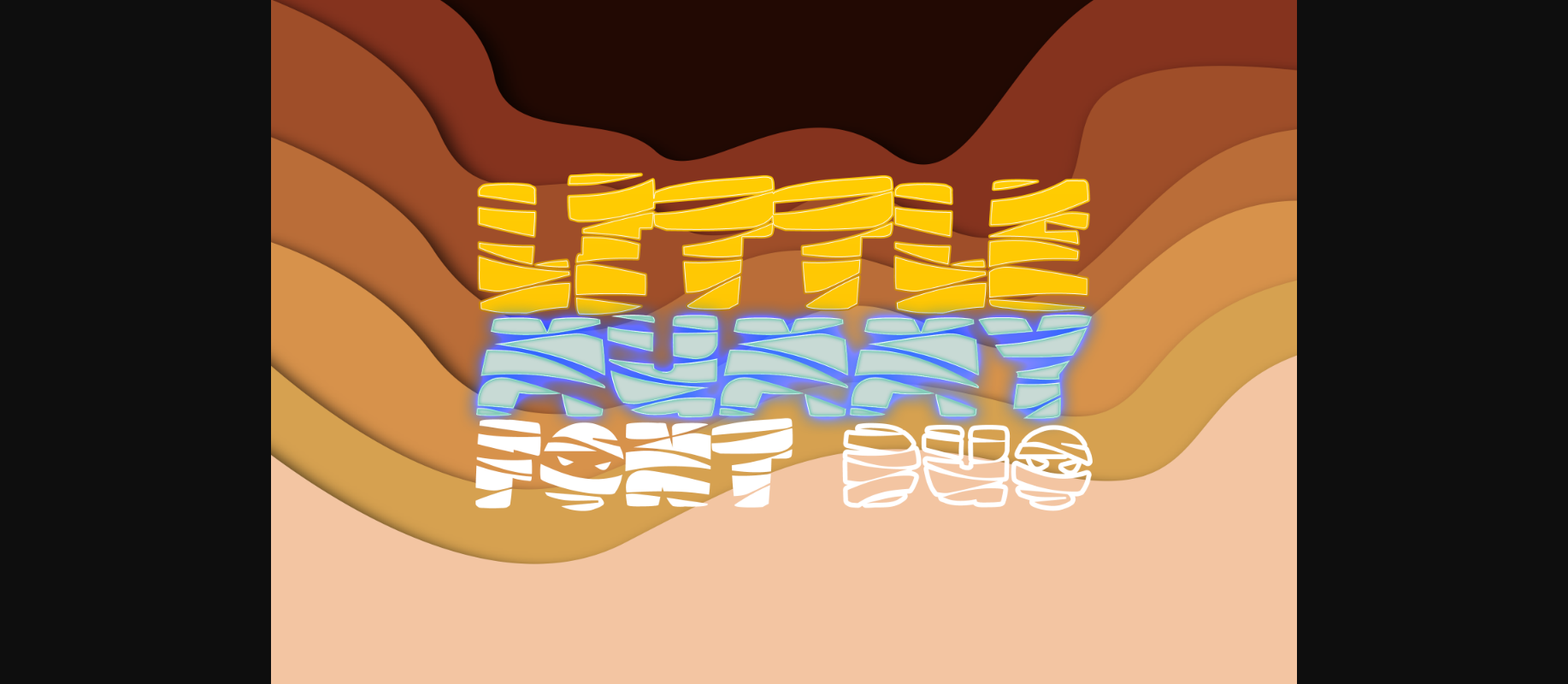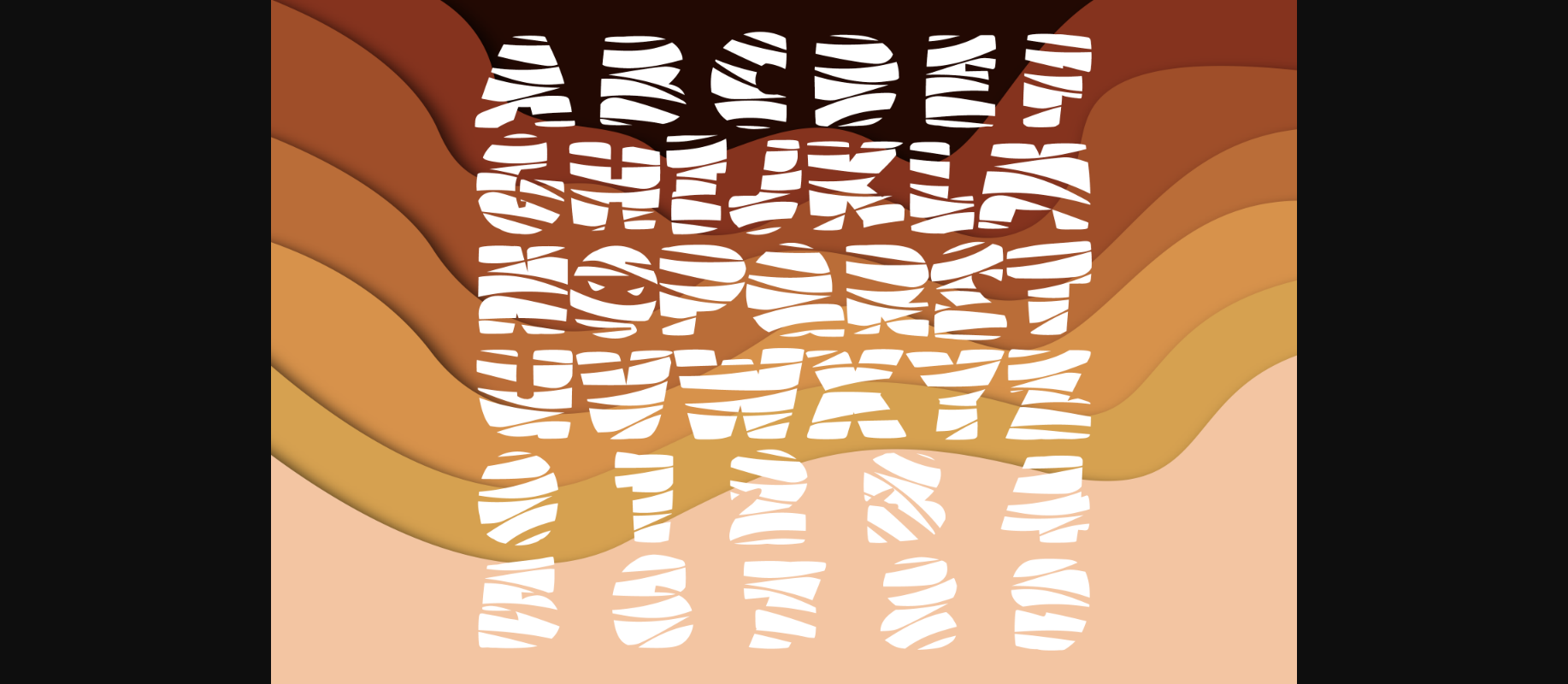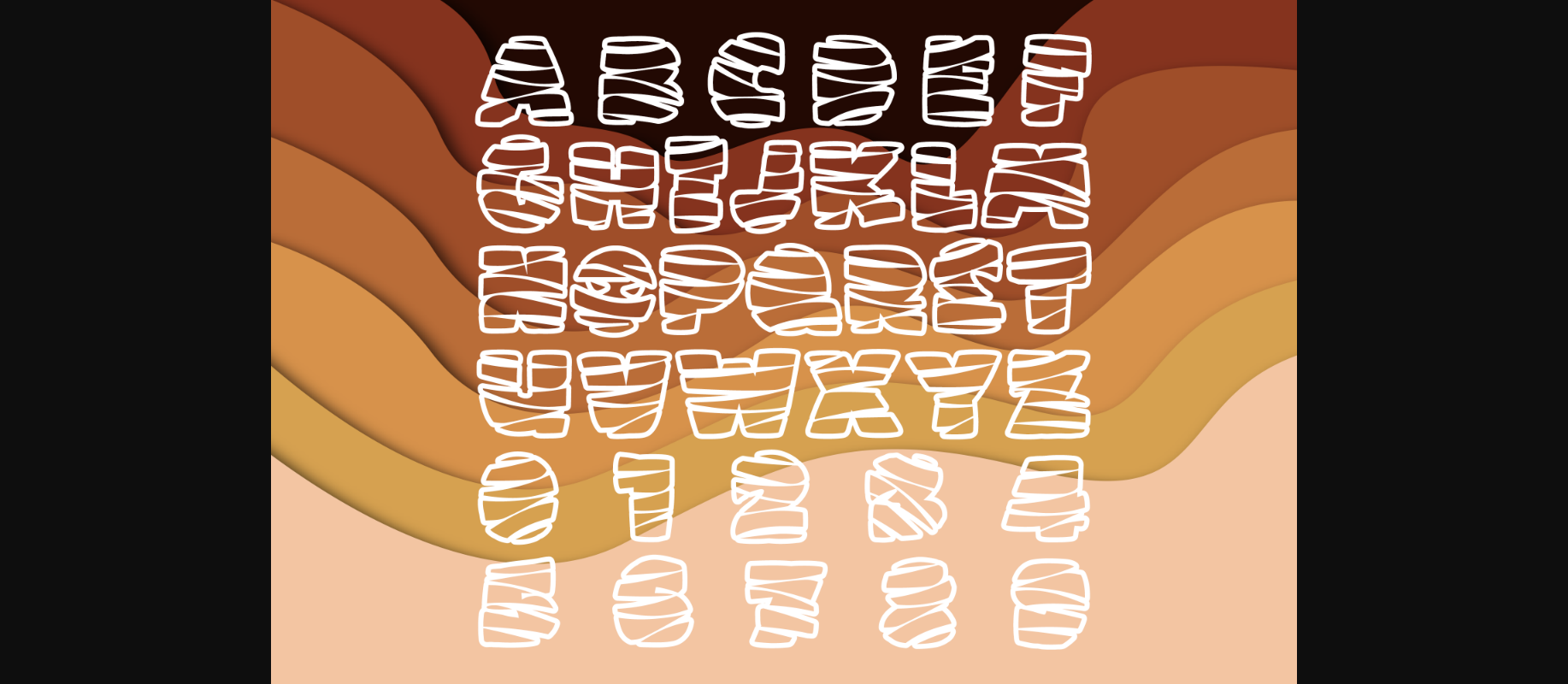
Little Mummy Duo Font
About Little Mummy Duo Font
Little Mummy Duo is a cool and thick lettered decorative font, with characters shaped as mummies. No matter the topic, this font will be an incredible asset to your fonts’ library, as it has the potential to elevate any creation.